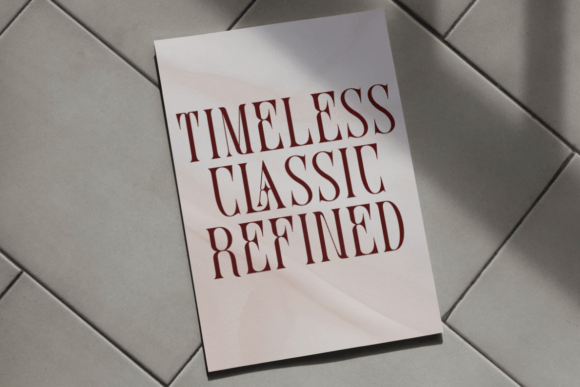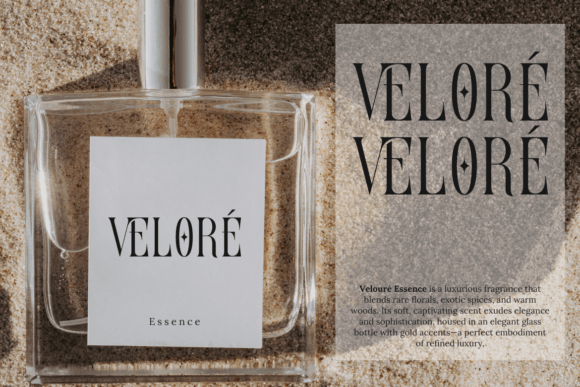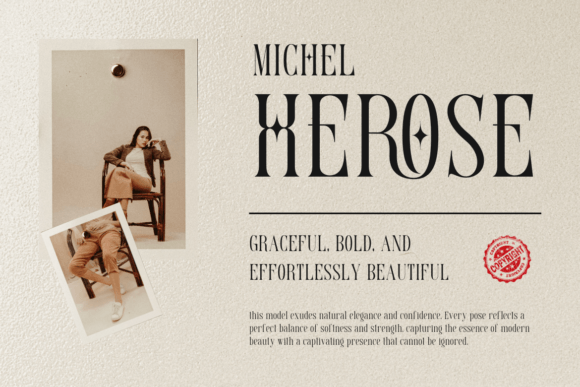
Introduction to Serino Font
Have you ever found yourself stuck in the middle of a creative project, searching for the perfect font to elevate your design? I know I have. One late night, scrolling through design resources, I stumbled upon the Serino Font. Its elegant and modern serif style immediately caught my attention. As I delved deeper, I discovered that this high-quality font offers a luxurious and professional aesthetic, perfect for making a statement in any design.
The beauty of Serino Font lies in its clean and precise design, making it an ideal choice for designers who value simplicity and sophistication. With ligatures and alternates at your disposal, the possibilities for creative expression are endless. Whether you’re working on a branding project, creating a brochure, or designing a website, Serino Font is sure to bring a touch of elegance and refinement to your work.
Key Features of Serino Font
- High-quality design resource ideal for creative projects, offering a unique and elegant style.
- Features a clean and modern design, making it perfect for use in logos, typography, and other creative projects.
Honest Review: Serino Font
✨ One thing that works well with the Serino Font is its modern and elegant design. The font is perfect for creating a professional and sophisticated look in your designs. I’ve used it for several projects, and it always delivers.
Here are some of the key features of the Serino Font:
- Modern and elegant design
- Perfect for professional and sophisticated designs
Tips for Getting the Most Out of Serino Font
The Serino Font is suitable for various creative projects, including branding, packaging, and advertising materials. Its high-quality design and transparent background make it a versatile and practical choice for designers and non-designers alike.